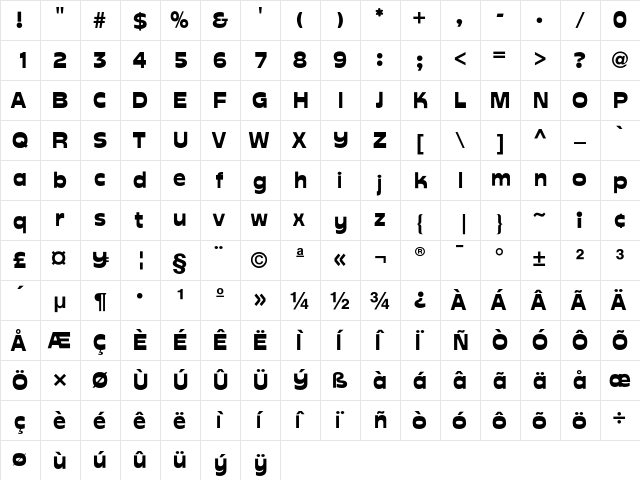
Kenneth Normal
Design Context for Kenneth Typeface
Kenneth is a composed and adaptable typeface that performs quietly and consistently across a wide range of design contexts.